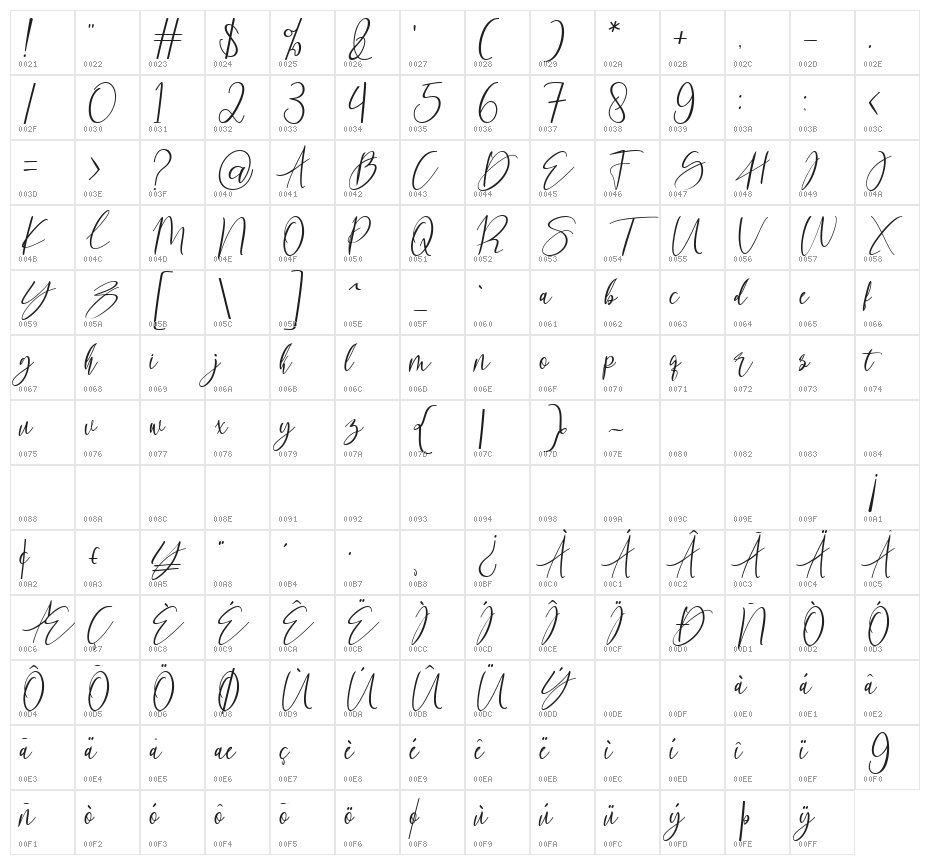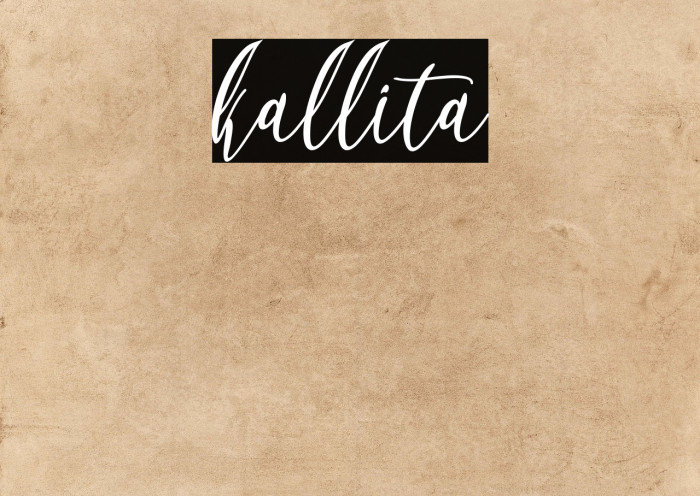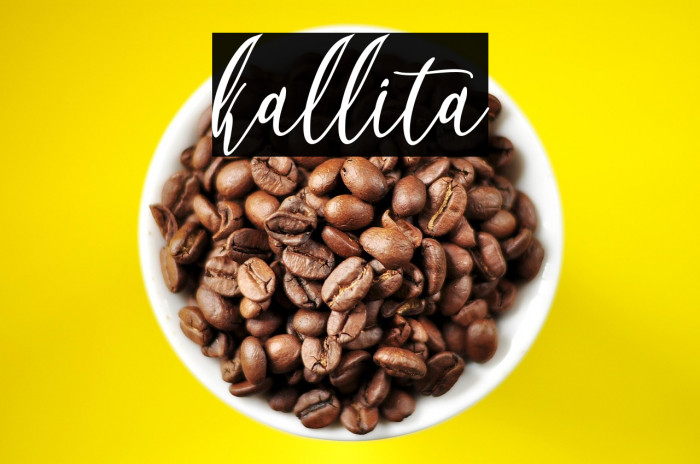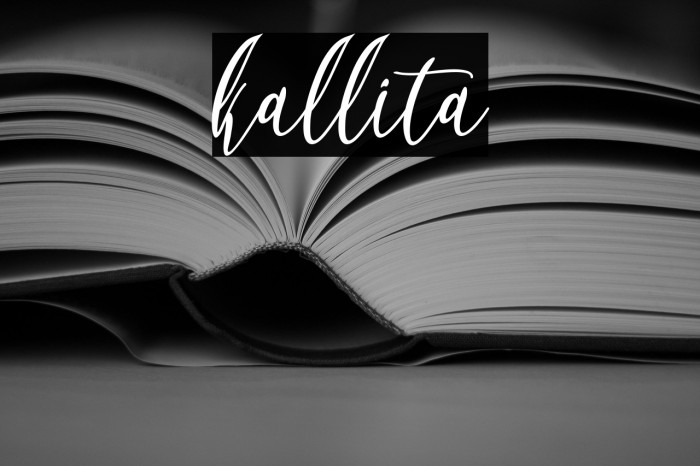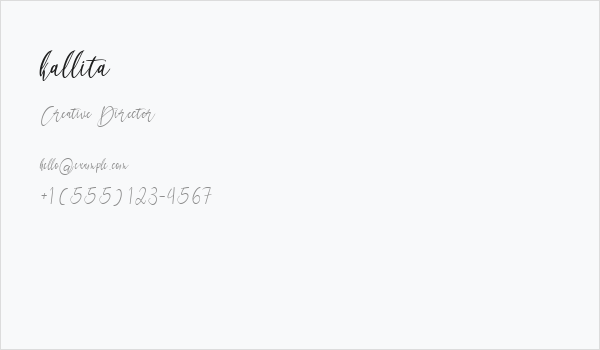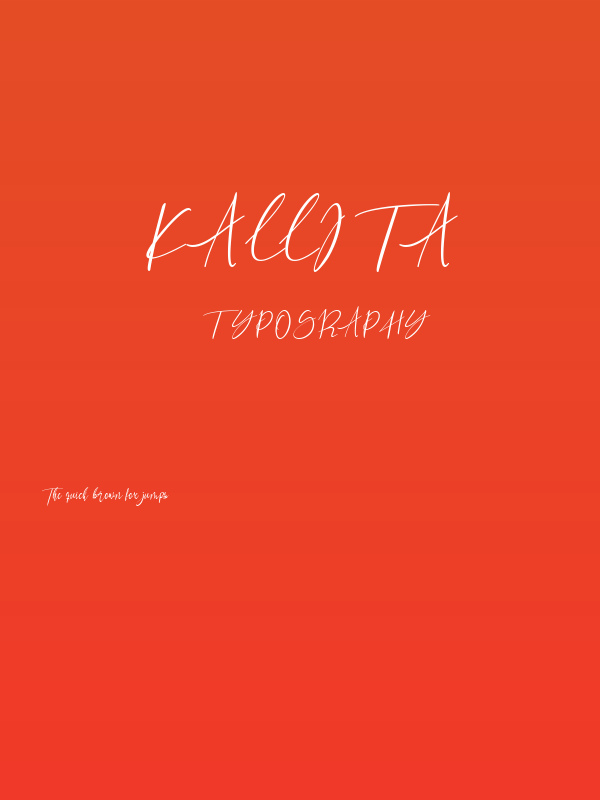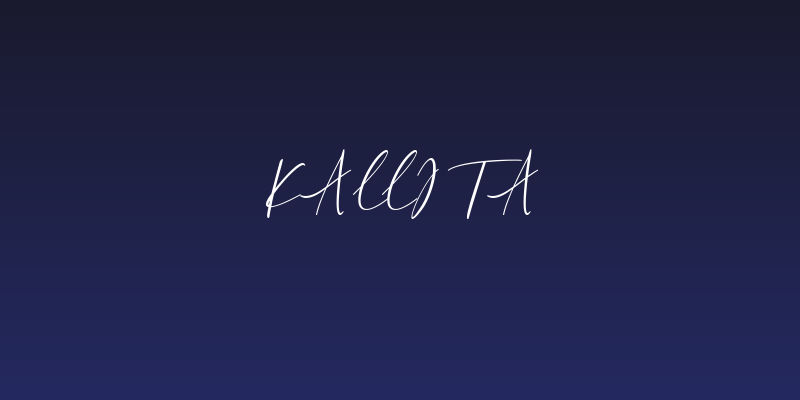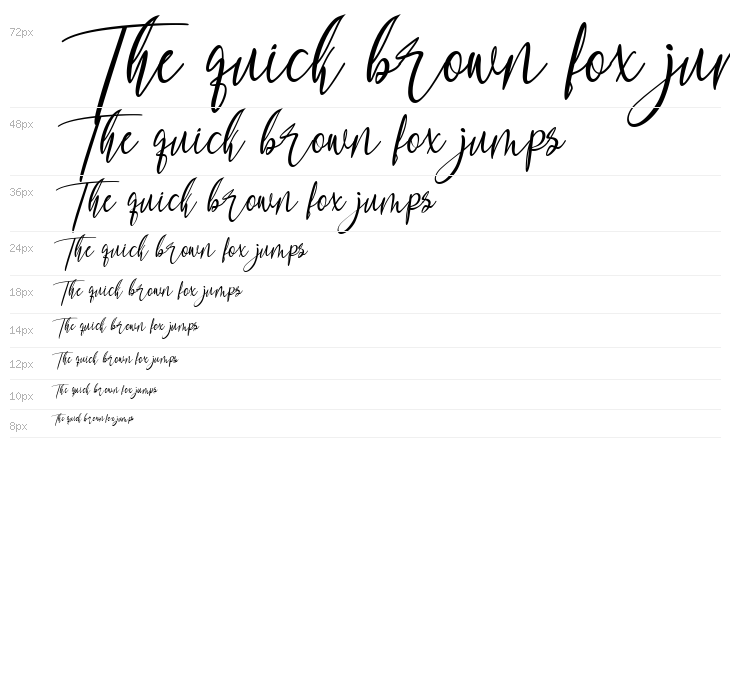
kallita Font
kallita Description
This font exhibits a flowing, cursive style that mimics elegant handwriting. The uppercase letters are tall and slender, with a slight slant that adds a dynamic feel. The lowercase letters are more intricate, featuring loops and flourishes that enhance its decorative appeal. Numbers and special characters maintain the same fluidity, ensuring consistency across all glyphs. The overall design is sophisticated and artistic, making it suitable for projects that require a personal touch.
| Proposed Projects | Ideal for wedding invitations, greeting cards, personal branding, and artistic projects that require a touch of elegance. |